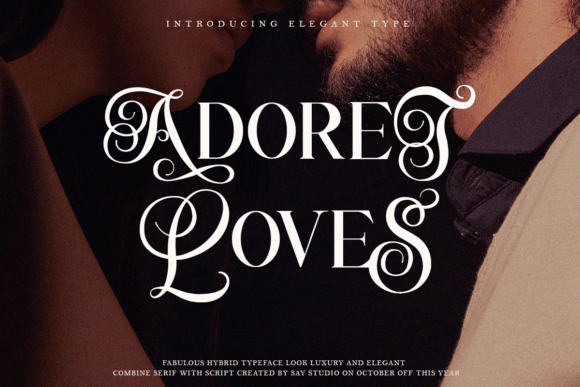
Introducing Adoret Loves Font: The Perfect Choice for Creative Designers
Are you a designer looking for a font that can add a touch of elegance and sophistication to your designs? Look no further than Adoret Loves Font. This beautiful font is specifically designed for headlines, titles, and short texts, making it perfect for a wide range of creative projects. In this article, we’ll take a closer look at Adoret Loves Font and explore its features, uses, and benefits.
What is Adoret Loves Font?
Adoret Loves Font is a stunning typeface designed to make a statement. Its unique blend of modern and vintage elements makes it perfect for designers who want to create eye-catching headlines, titles, and short texts. The font is carefully crafted to convey a sense of luxury, sophistication, and elegance, making it ideal for high-end branding, advertising, and editorial design.
Features of Adoret Loves Font
So, what makes Adoret Loves Font so special? Here are some of its key features:
- Unique Design: Adoret Loves Font boasts a distinctive design that sets it apart from other fonts. Its elegant lines, curves, and swashes make it perfect for creating beautiful headlines and titles.
- Versatility: This font is incredibly versatile and can be used for a wide range of design projects, including advertising, branding, logotypes, packaging, titles, editorial design, modern logos, websites, social media quotes, wedding branding, and more.
- Easy to Read: Despite its ornate design, Adoret Loves Font is surprisingly easy to read, making it perfect for short texts and headlines.
- High-Quality: Adoret Loves Font is a high-quality font that is designed to deliver exceptional results. Its crisp lines and smooth curves ensure that your designs look professional and polished.
Uses of Adoret Loves Font
Adoret Loves Font is an incredibly versatile font that can be used for a wide range of design projects. Here are some of the most popular uses for this font:
- Advertising: Adoret Loves Font is perfect for creating eye-catching ad headlines and titles that grab attention and drive results.
- Vintage Mood Board: This font is ideal for creating vintage-inspired mood boards that evoke a sense of nostalgia and sophistication.
- Branding: Adoret Loves Font can be used to create stunning brand identities that reflect a company’s values and personality.
- Logotypes: This font is perfect for creating custom logotypes that are both memorable and visually appealing.
- Packaging: Adoret Loves Font can be used to create beautiful packaging designs that stand out on store shelves.
- Titles and Editorial Design: This font is ideal for creating stunning titles and editorial designs that showcase a publication’s brand and style.
- Modern Logos: Adoret Loves Font can be used to create modern logos that are both sleek and sophisticated.
- Websites and Social Media Quotes: This font is perfect for creating engaging website content and social media quotes that drive engagement and conversions.
- Wedding Branding: Adoret Loves Font can be used to create beautiful wedding branding materials, such as invitations, menus, and wedding programs.
Benefits of Using Adoret Loves Font
So, why should you choose Adoret Loves Font for your design projects? Here are some of the benefits of using this font:
- Save Time: Adoret Loves Font is designed to save you time and effort. Its unique design and versatility make it easy to use and customize.
- Stand Out: This font is designed to help you stand out from the crowd. Its elegant design and sophisticated style make it perfect for creating eye-catching headlines and titles.
- Professional Results: Adoret Loves Font is a high-quality font that delivers professional results. Its crisp lines and smooth curves ensure that your designs look polished and refined.
- Easy to Customize: This font is easy to customize, making it perfect for designers who want to add their own personal touch to their designs.
Tips for Using Adoret Loves Font
Here are some tips for using Adoret Loves Font effectively:
- Use it for Headlines and Titles: Adoret Loves Font is designed for headlines and titles, so use it to create eye-catching headings that grab attention.
- Experiment with Colors and Textures: This font looks great in a variety of colors and textures, so don’t be afraid to experiment and find the perfect combination for your design.
- Pair it with Other Fonts: Adoret Loves Font can be paired with other fonts to create a unique and visually appealing design.
- Use it Consistently: To get the most out of Adoret Loves Font, use it consistently throughout your design project.
| Font Name | Adoret Loves Font |
| Author | SayStudio |
Adoret Loves Font is a stunning typeface that is perfect for designers who want to create elegant and sophisticated designs. Its unique design, versatility, and high-quality make it ideal for a wide range of creative projects, from advertising and branding to editorial design and wedding branding. With its ease of use, customization options, and professional results, Adoret Loves Font is a must-have font for any designer looking to take their designs to the next level.